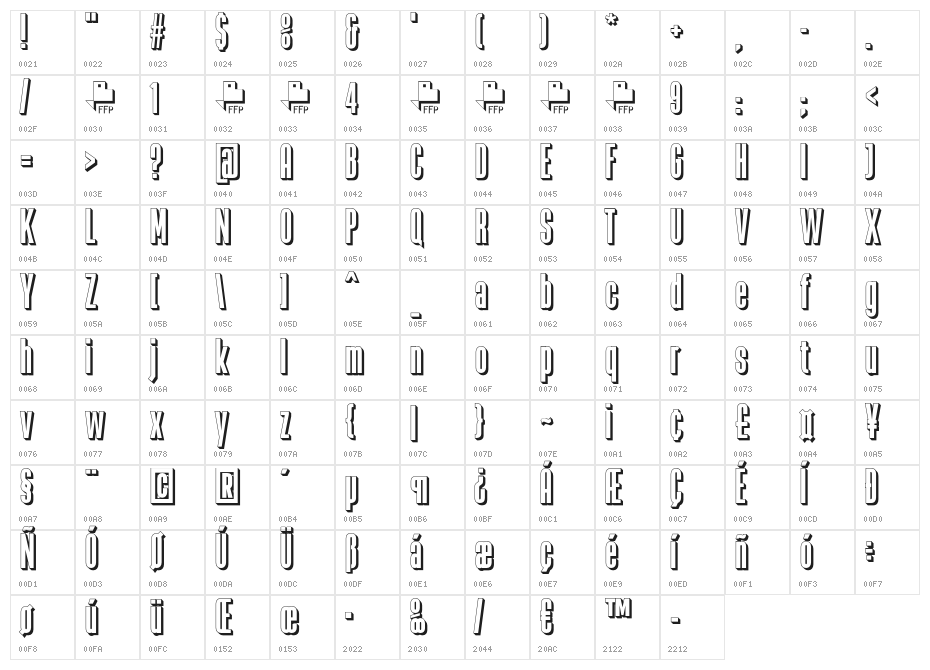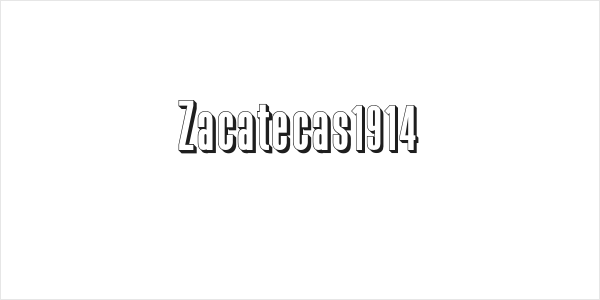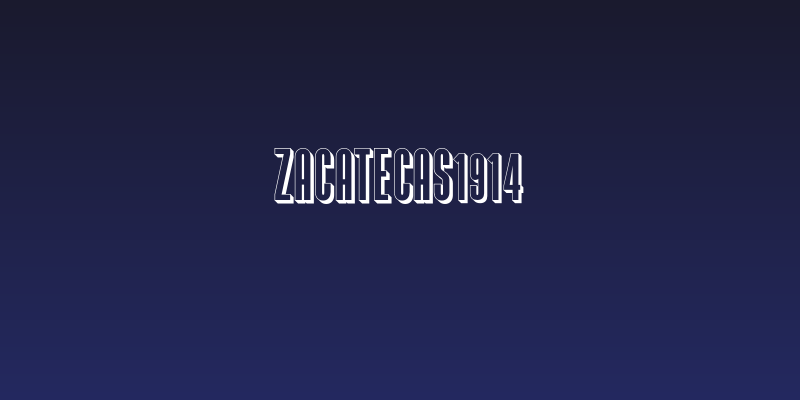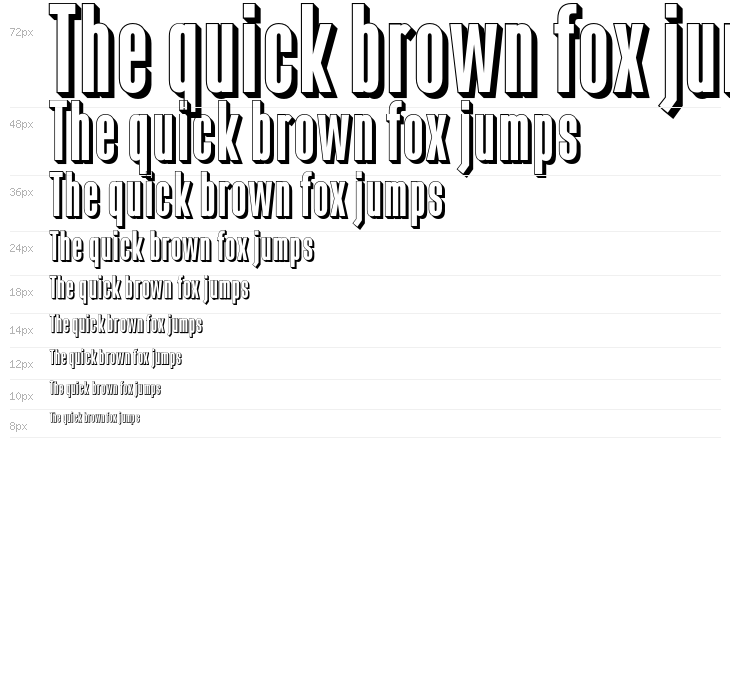
Zacatecas1914 Font
Zacatecas1914 Description
This font features a bold and impactful design with a three-dimensional effect, achieved through a shadowed outline that gives depth to each character. The uppercase and lowercase letters maintain a consistent width, creating a uniform appearance. The font's style is characterized by its strong vertical lines and slightly condensed form, making it suitable for attention-grabbing headlines. The numbers and special characters are designed with the same boldness, ensuring consistency across all text elements. The overall aesthetic is modern and dynamic, ideal for projects that require a striking visual presence.